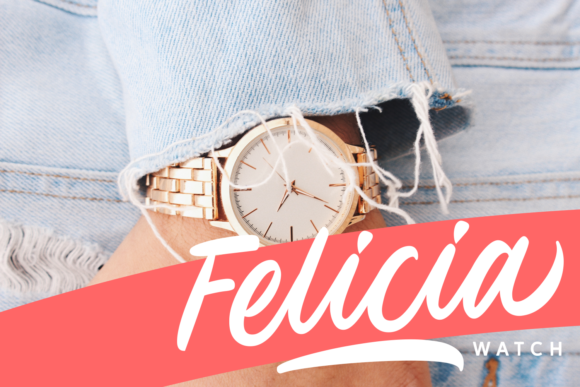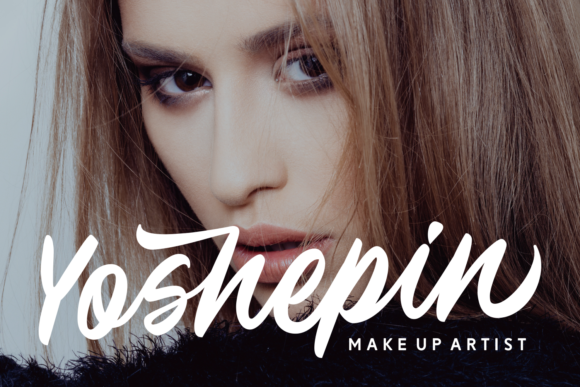
Introduction to Kevin Aprilio Font Font
Fonts play a crucial role in design, and the Kevin Aprilio Font font is a typeface that brings both character and versatility to any project. Whether you’re working on a branding project, a website, or a print design, the Kevin Aprilio Font font offers a unique style that can elevate your work.
The Kevin Aprilio is a striking script font.
It includes bold letters with a great readability which can be used to add a modern touch to your designs .
Key Features of Kevin Aprilio Font Font
Why Choose Kevin Aprilio Font Font?
The Kevin Aprilio Font font is more than just a typeface – it’s a design tool that helps you communicate your message with style and clarity. Its unique character set and versatile design make it suitable for a wide range of applications, from elegant invitations to bold headlines.
With its carefully crafted letterforms and balanced proportions, the Kevin Aprilio Font font ensures readability and visual appeal across all mediums.
What makes Kevin Aprilio Font font special?
The Kevin Aprilio Font font stands out with its unique design, exceptional readability, and versatility across various design applications.